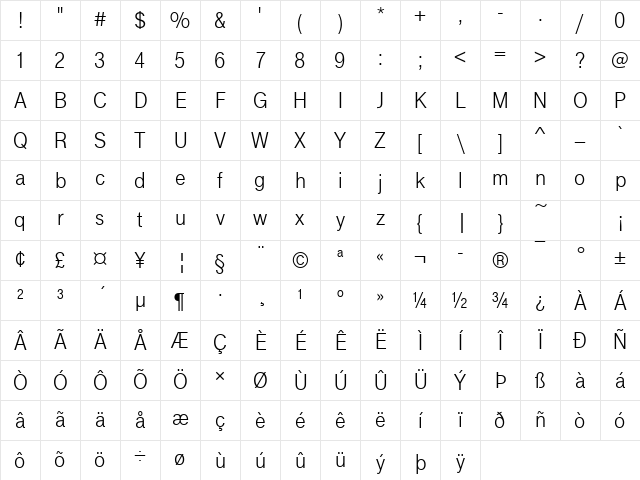
Tele-GroteskNor Regular Free Font
Tele-GroteskNor Regular
Design Context for Tele-GroteskNor
Tele-GroteskNor takes a clean, functional approach - its unadorned letterforms prioritise legibility and work reliably across screen and print environments.
Works well in signage, UI design, marketing materials, and anywhere clean functional typography is needed.
Font Pairing: Works well alongside a characterful serif or display font that can carry the expressive load while Tele-GroteskNor handles the functional copy.
Pro Tip: Use Tele-GroteskNor for UI labels, navigation, and short-form body copy where clean legibility is the priority.